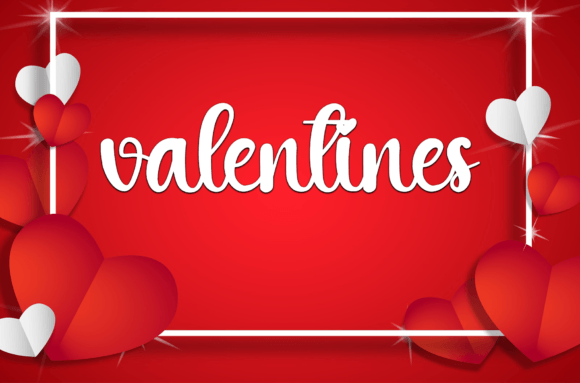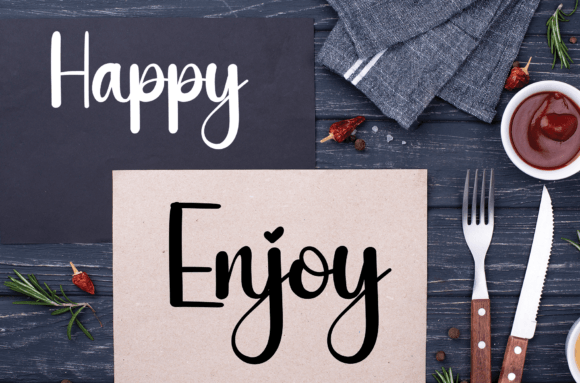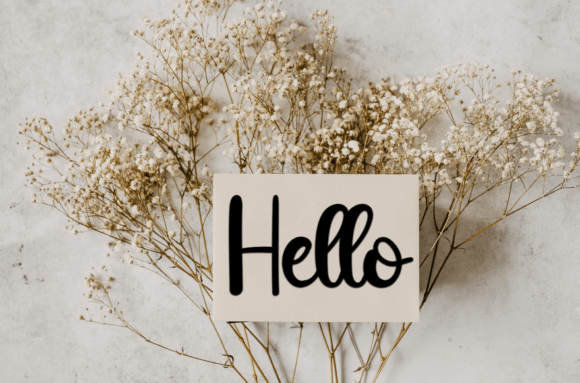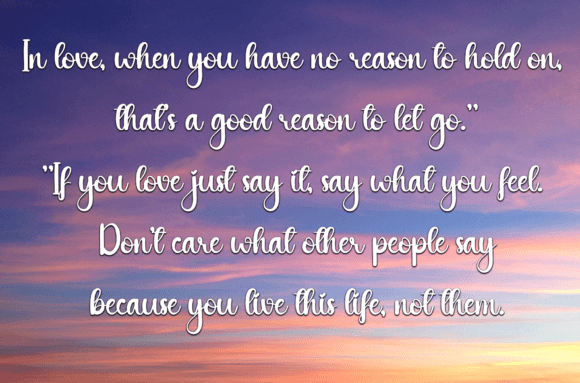
About Simple Lemonade Font
Simple Lemonade Font is a sweet and friendly handwritten typeface designed to bring a fun and relaxed vibe to your projects. Its approachable style makes it ideal for wedding invitations, greeting cards, and any design that needs a joyful and heartfelt touch. Simple Lemonade adds warmth and personality, making your creative work feel inviting and personal.
Fun and Relaxed Handwritten Style
This font features soft, flowing strokes and friendly letterforms that create a cheerful and welcoming atmosphere. Simple Lemonade balances casual charm with clarity, ensuring your designs look both playful and polished.
Ideal Uses for Simple Lemonade Font
Simple Lemonade works well for:
Wedding invitations and save-the-date cards
Greeting and thank-you cards
Personal letters and notes
Event signage and party decorations
Social media posts and blog graphics
Its joyful and relaxed style fits many occasions and creative ideas.
Why Choose Simple Lemonade Font?
Designers love Simple Lemonade for its:
Sweet, friendly handwritten appearance
Clear readability and casual charm
Versatility across print and digital media
These features make Simple Lemonade a practical and delightful font choice.
Add Joy and Warmth to Your Designs
Typography plays a key role in setting the mood. Simple Lemonade adds a joyful and heartfelt tone, making your projects feel genuine and inviting. Whether for weddings or casual projects, this font enhances emotional connection.
In summary, Simple Lemonade Font is a sweet and friendly handwritten script perfect for designers wanting to add a joyful and relaxed touch to invitations, cards, and more. Add Simple Lemonade to your font collection for warm and inviting designs.